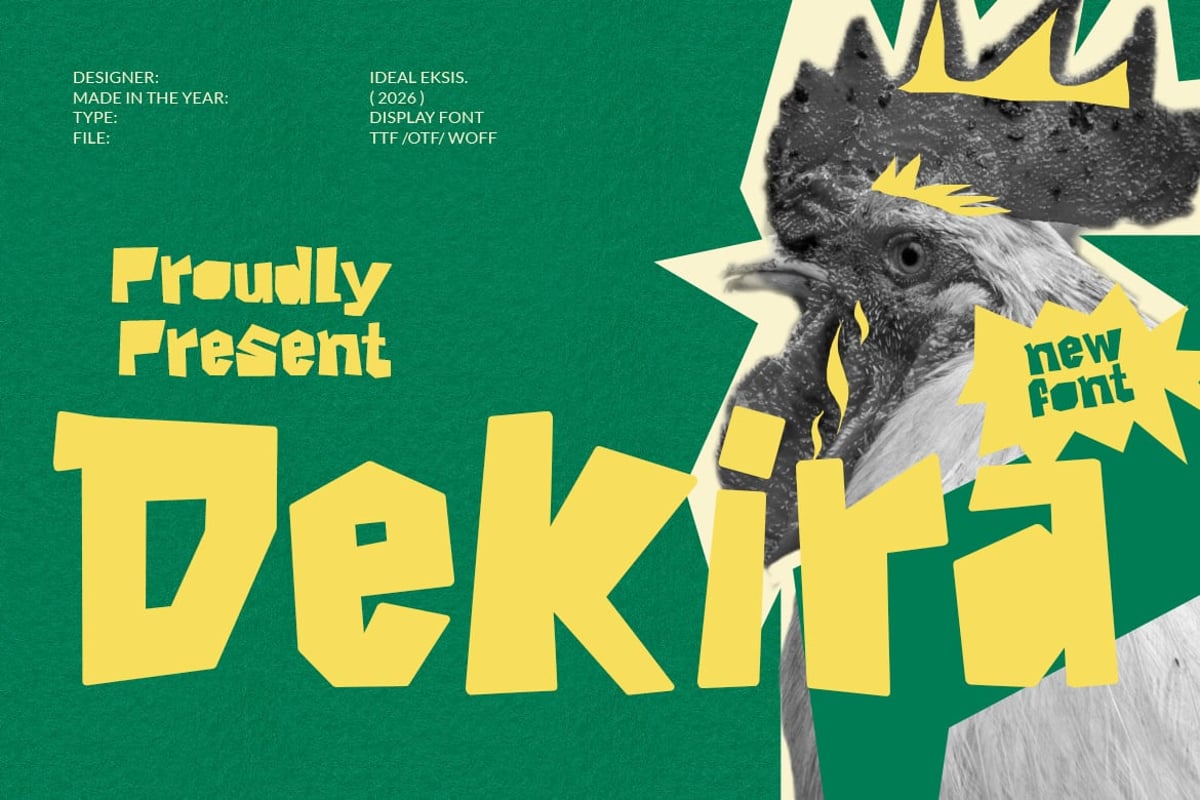
Dekira - Display Font
Make a rebellious statement with Dekira's jagged, paper-cut aesthetic and raw handmade energy.
This bold, expressive display font features irregular, blocky letterforms with sharp, angular terminals that deliver an authentic handcrafted feel. The heavy weight and unconventional counters create a high-impact visual rhythm that commands attention in any design.
Dekira's construction mimics letters cut from paper, bringing a tactile and energetic quality to your compositions. Perfect for posters, branding projects, and editorial design where you need a punk-inspired or rebellious vibe.